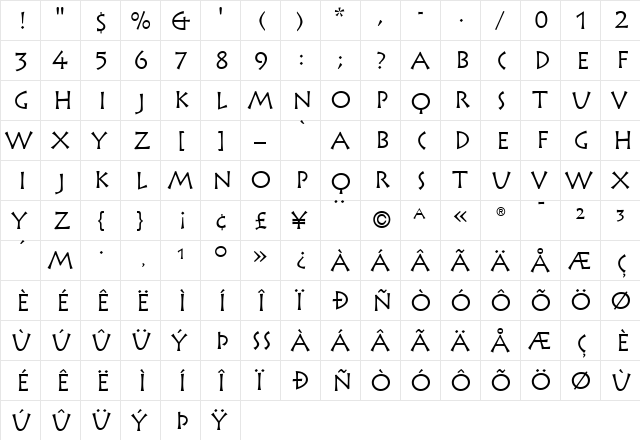
RusticanaRoman Roman
Design Context for RusticanaRoman Typeface
RusticanaRoman offers clean, dependable letterforms without strong stylistic allegiance, making it a practical choice for designers who need flexibility.